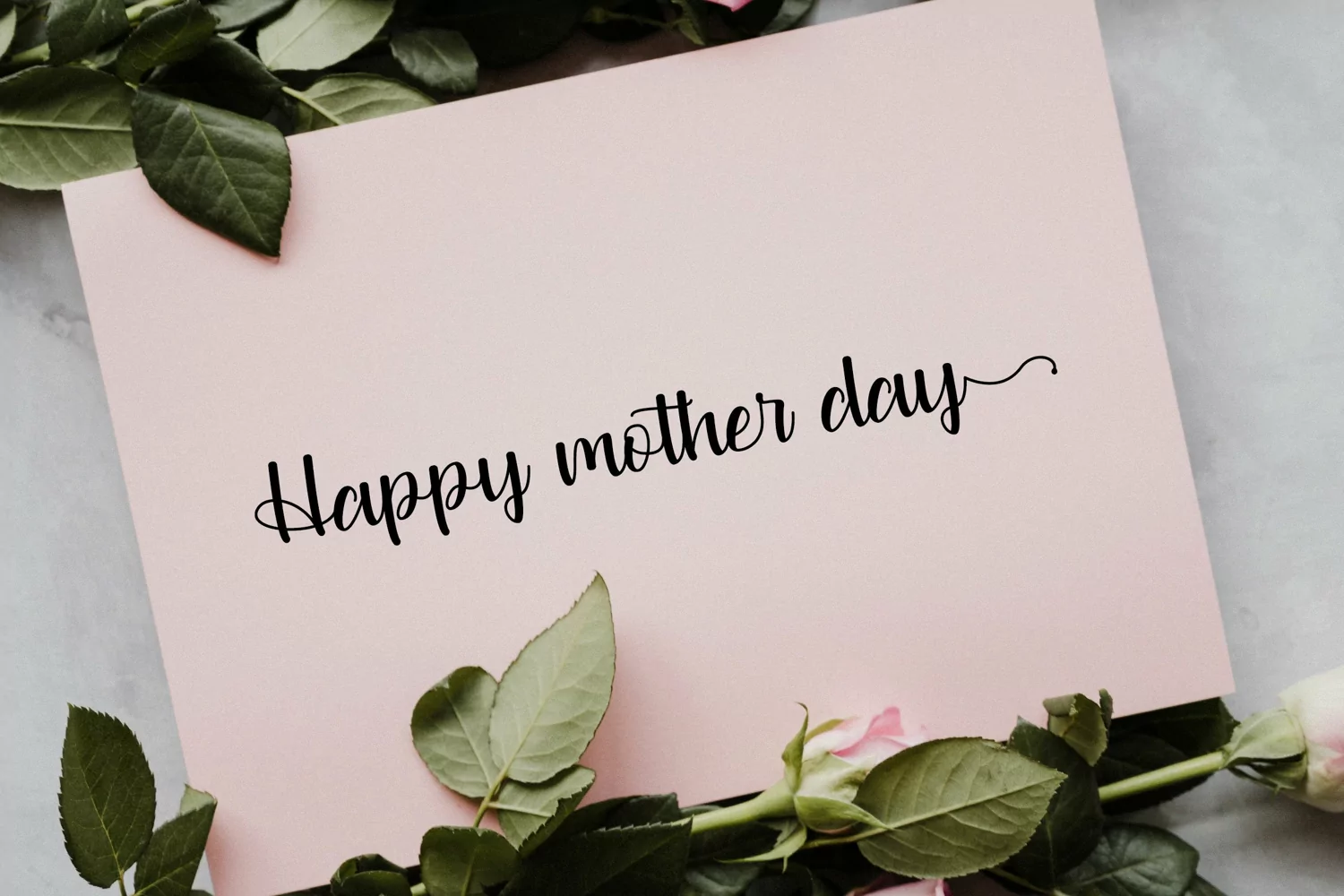
Baby Kiano Duo font full set of lovely uppercase and lowercase letters, multilingual symbols, numerals, punctuation. is perfect fo you up coming projects. such as modern invitation design, branding stationery design, wedding, birthday, qoute, craft, etc and any projects.